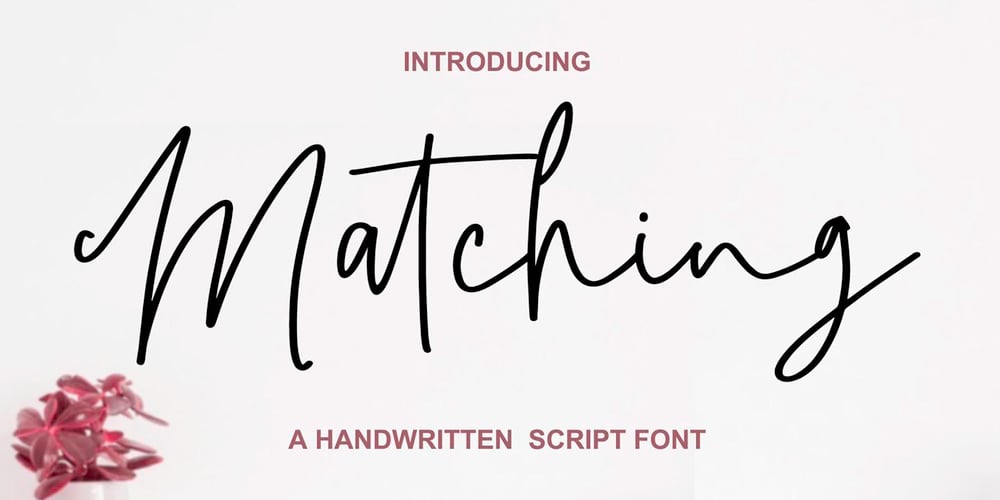
Matchings Font Family was designed by Rizal Aiyub and published by Fontysia. Matchings contains 1 styles and family package options. Matching is a beautiful, casual script adds a custom and organic feel to any design you need!Use this font for: Branding, Invitations, Stationery, Logos, Print Materials, Watermark, Label, Wedding designs, Social media posts, Products, Desktop Programs, Canva , Websites and more.